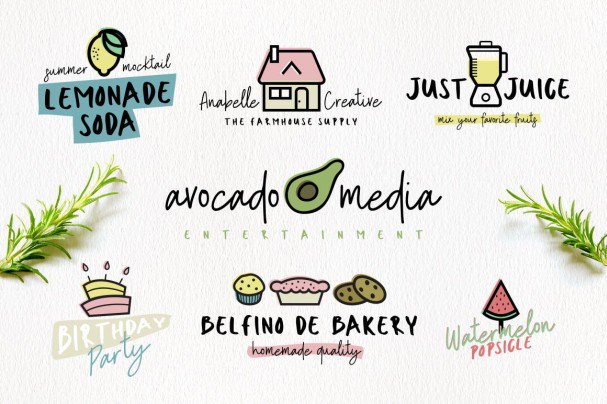
Sweet Belly Font
Sweet Belly Font is the most famous font inside the Microsoft. This is moreover one of the famous fonts within the mac system. It is a script typeface.
This font has been used everywhere because of the truth that its miles beginning. Its top-notch credit score may be attributed to the reality that it is the super brush font to be had now.
Style Of Sweet Belly Font Free